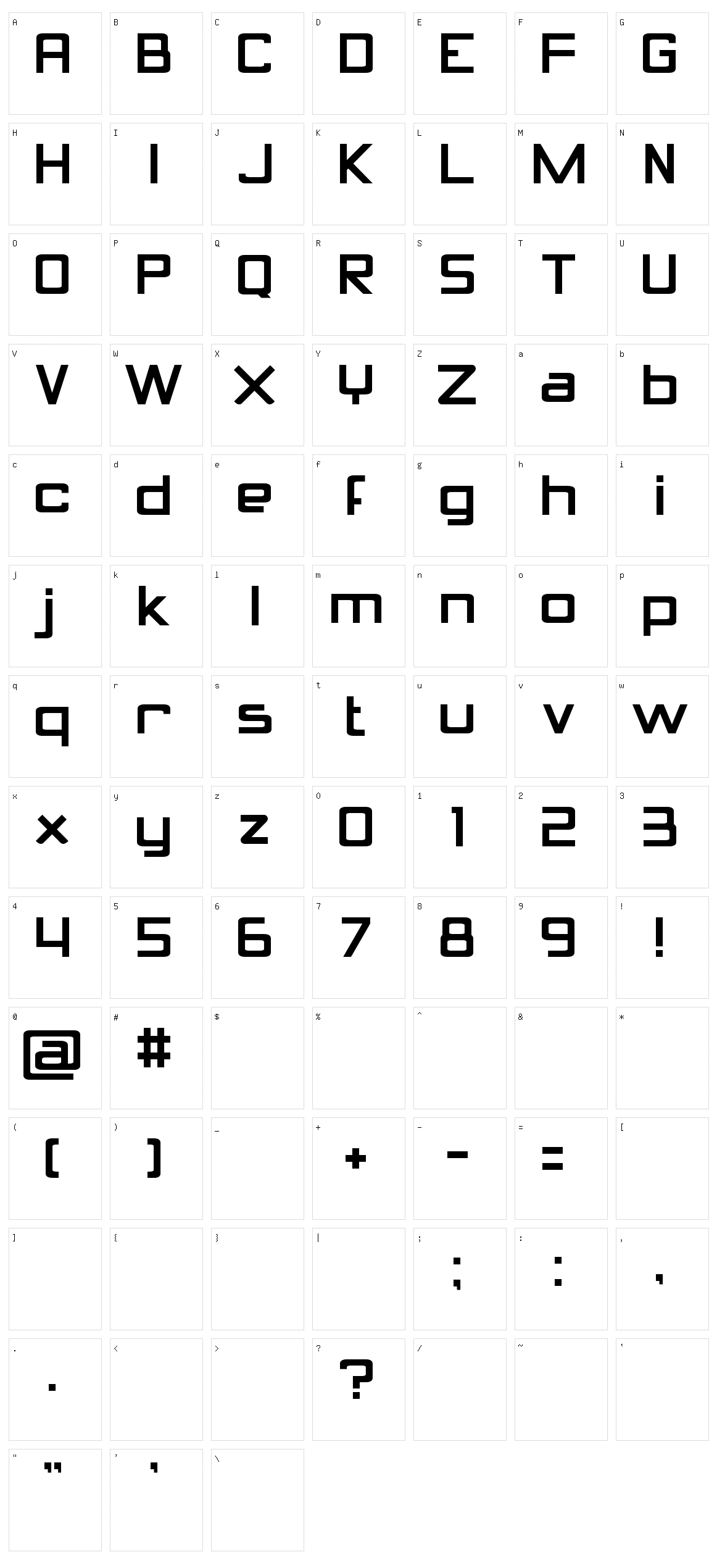
The free font Calcula is carefully designed by Pepijn de Brouwer, showcasing a thoughtful balance of creativity and usability and belongs to the Techno font family. When you download the ZIP file, it contains only 9.45 KB of font files, making it lightweight and quick to download. Please review the license details below to understand permitted usage and distribution rights. If license information is not available, we recommend using this font for personal projects only or contacting the author directly for commercial usage permissions.